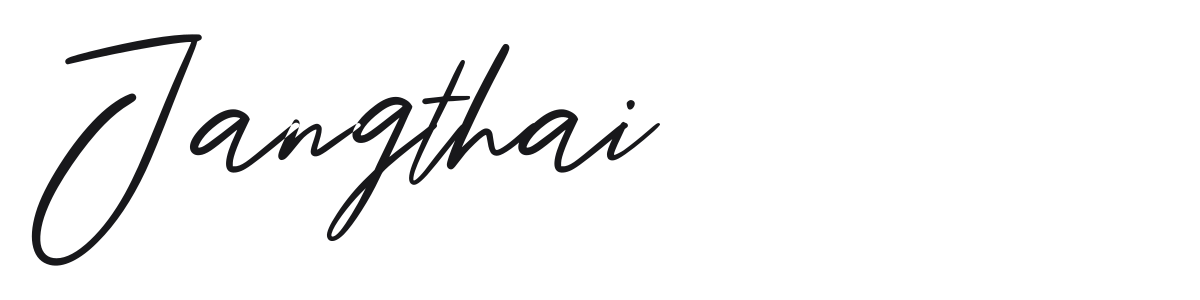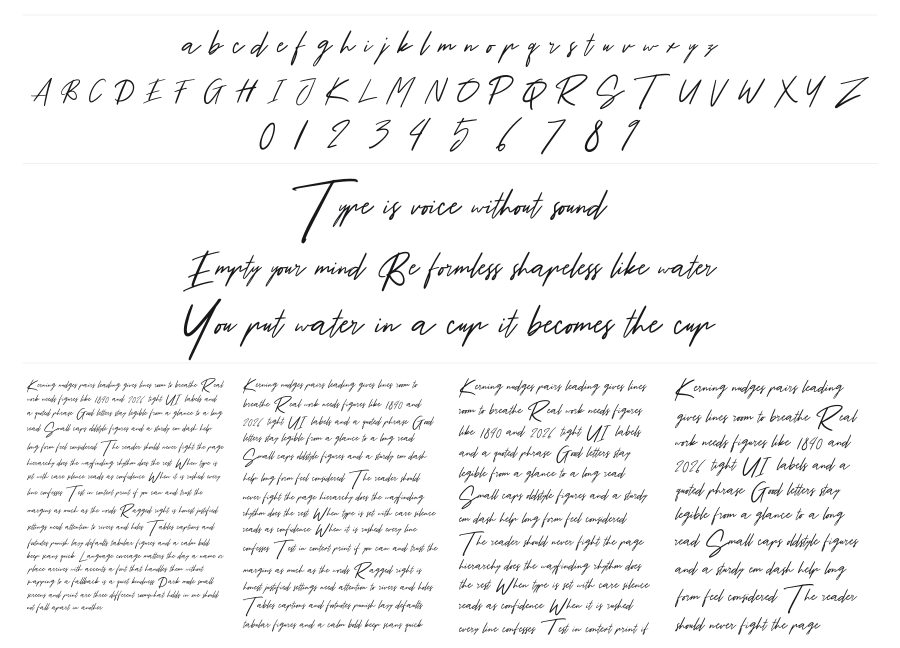
Jangthai
Jangthai is a flowing casual script from Mergotype with long, sweeping strokes and an effortless handwritten character. The loose connections between letters and gently wandering baseline give it a natural, spontaneous energy without feeling sloppy. It works well for brand identities, packaging, and any headline that needs a personal, lived-in touch.